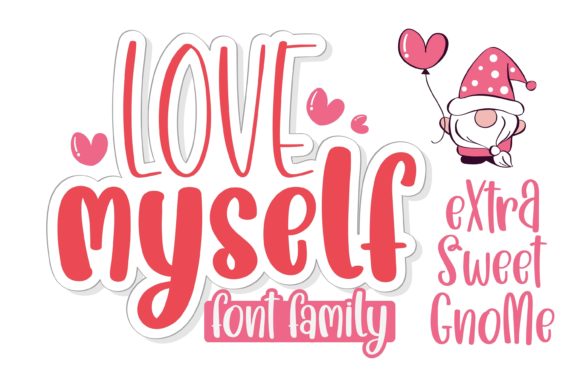
Unleash your creativity with Love Myself Font, the captivating script font family designed to bring warmth and charm to your digital creations. Its playful and carefree style evokes a sense of joy and optimism, making it the perfect choice for adding a personal touch to your projects.
With its natural and unique flow, Love Myself Font captures the essence of handwritten notes, bringing a touch of authenticity and uniqueness to your designs. Its carefully crafted characters exude a sense of warmth and approachability, making it ideal for creating designs that resonate with your audience on an emotional level.
Whether you're working on branding materials, social media graphics, or personal projects, Love Myself Font is the perfect choice for adding a touch of charm and personality. Its versatility shines through in a variety of design applications, from logos and posters to invitations and greeting cards.